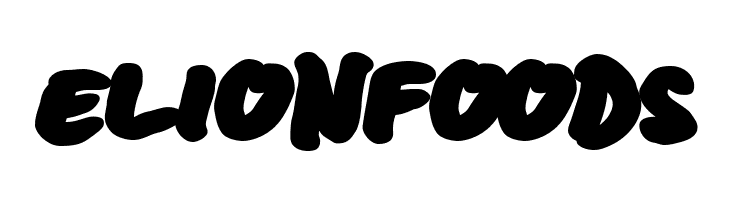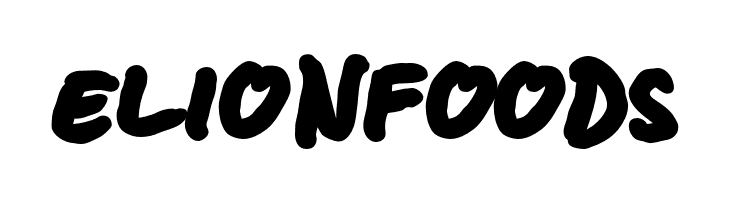
A bold, angular, and slanted font with a modern and dynamic style.
A geometric and structured font with sharp angles and a modern appearance.
A geometric, angular font with a modern, slanted design.
A bold, distressed font with a vintage, handcrafted look.
A geometric, minimalist font with clean lines and angular shapes.
A bold, geometric font with strong, angular lines and a modern aesthetic.
A geometric, minimalist font with a modern and technical style.
A bold, textured serif font with a handcrafted appearance.
A handcrafted, artistic font with a vintage flair and modern twist.
A thin, hand-drawn serif font with an elegant and organic style.
A bold, classic serif font with strong strokes and elegant serifs.
A classic serif font with elegant strokes and balanced proportions.
Elegant italic serif font with a classic and sophisticated style.
A classic serif font with Renaissance-inspired elegance and moderate contrast.
A classic, oblique serif font with a Renaissance-inspired elegance.
A bold, brush-style font with a dynamic, handwritten appearance.
A dynamic, expressive handwritten font with fluid, organic strokes.
A modern, geometric sans-serif font with a clean and uniform appearance.
A modern, light sans-serif font with low contrast and slightly condensed width.
A clean and modern sans-serif typeface with balanced spacing and consistent stroke width.
A bold, modern sans-serif font with a clean and cohesive design.
A modern, italic sans-serif font with medium weight and normal spacing.
A modern, light, and italic sans-serif font with sleek, elongated characters.
A modern sans-serif font with an italic slant, offering a sleek and professional look.
A dynamic, textured handwritten font with expressive strokes.
A bold, handwritten font with a dynamic and energetic style.
A lively handwritten font with fluid, dynamic strokes and a playful aesthetic.
A bold, modern font with clean lines and consistent stroke width.
A modern, italic sans-serif font with clean lines and balanced proportions.
A clean, modern sans-serif font with a minimalist design.